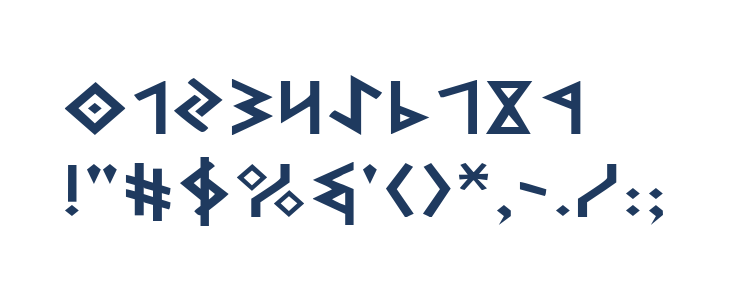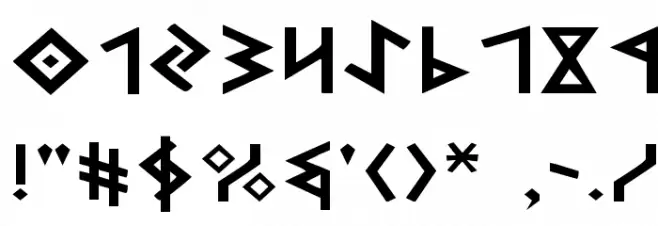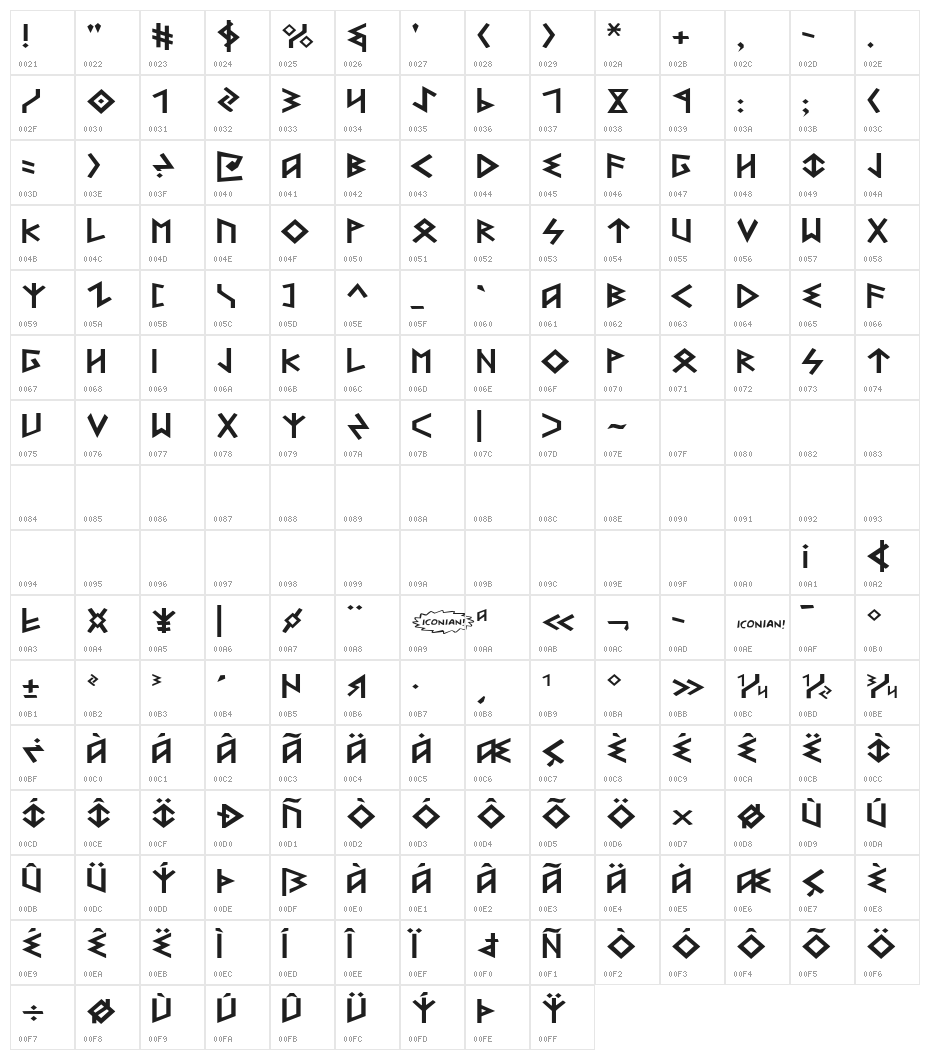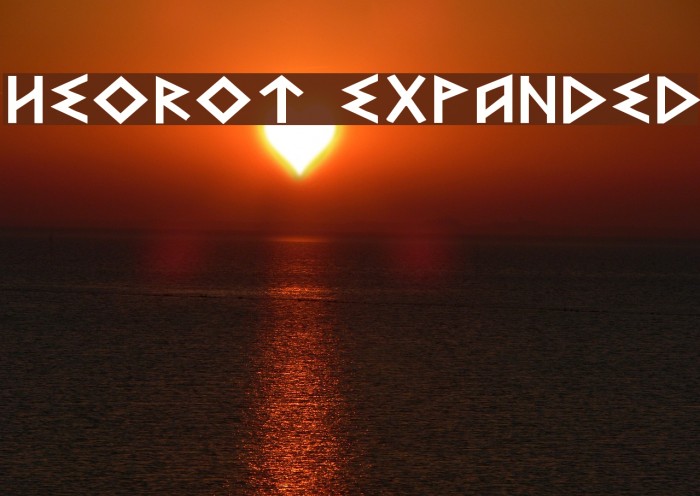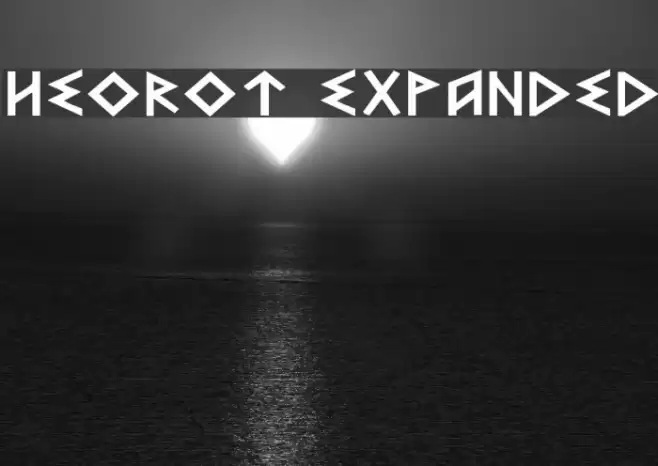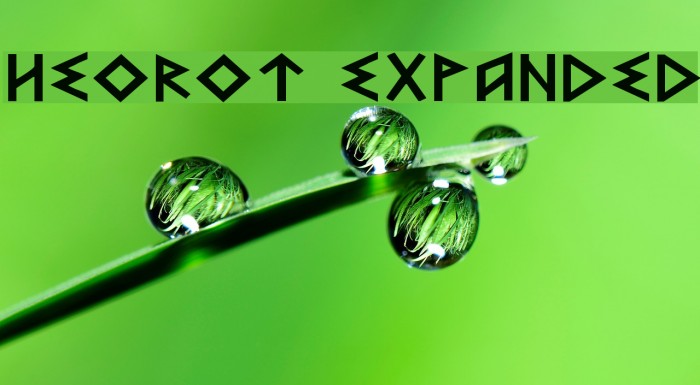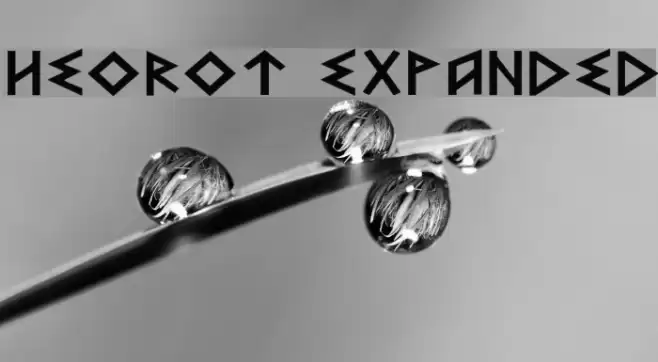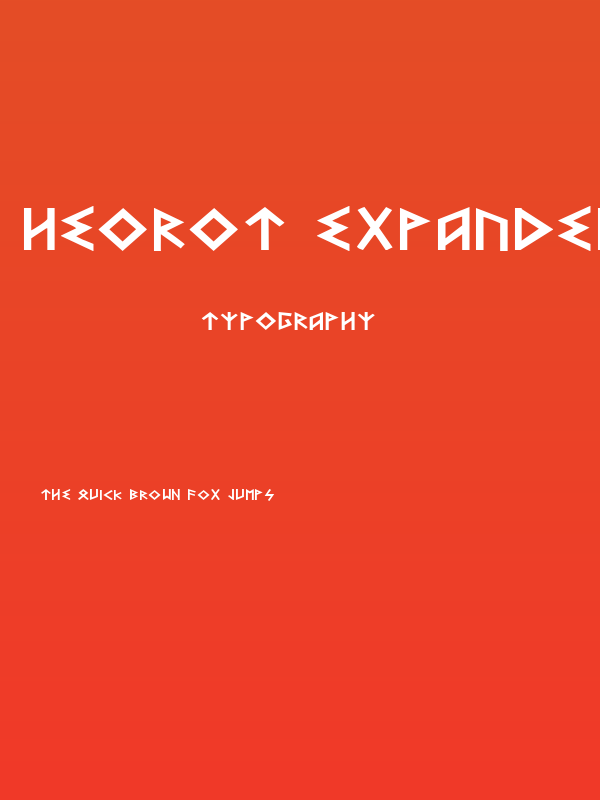
Heorot Expanded Font
Heorot Expanded Description
This font features a bold, angular design with a distinct geometric style. The characters are crafted with sharp edges and a futuristic appearance, reminiscent of ancient runes or tribal symbols. The uppercase and lowercase letters maintain a consistent design, emphasizing symmetry and boldness. The numerals and special characters follow the same stylistic approach, ensuring uniformity across the font. This font's unique aesthetic makes it stand out, offering a modern twist on traditional letterforms.